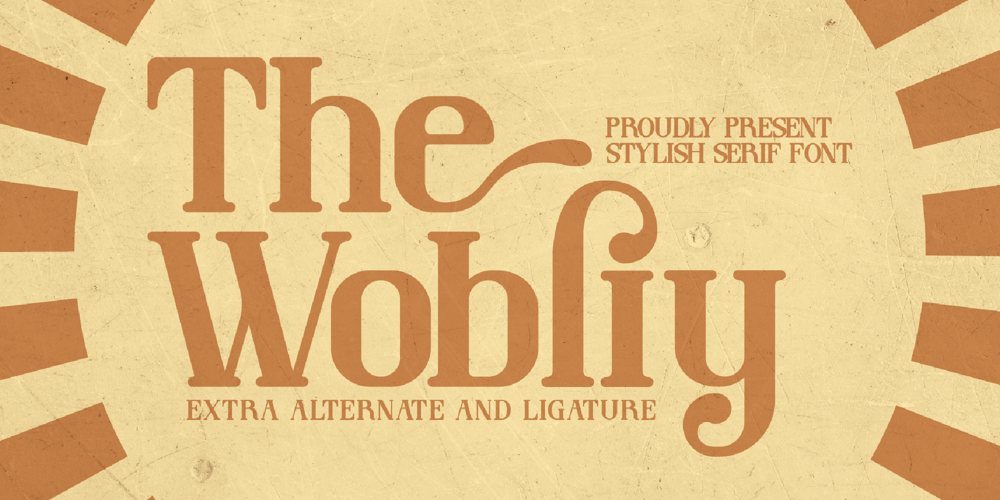
The Wobliy Font Family was designed by Heru Utama Putra and published by Letterena Studios. The Wobliy contains 2 styles and family package options. Wobliy is a classy serif font that has its own unique style & modern look.This typeface is perfect for an elegant & luxury logo, book or movie title design, fashion brand, magazine, clothes, lettering, quotes, and so much more.